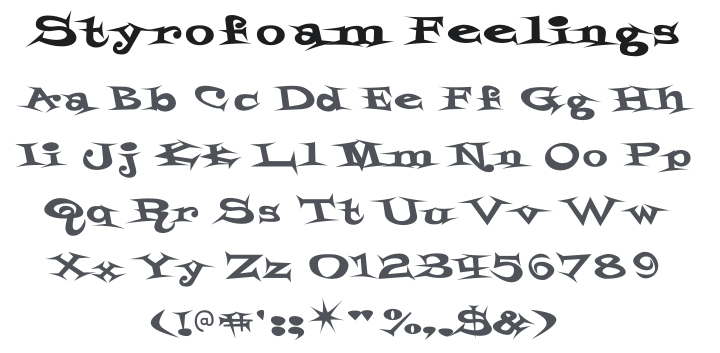
Styrofoam Feelings Font
About Styrofoam Feelings
Styrofoam Feelings is a bold, sharp-edged Latin serif display typeface with a casual, nonchalant attitude — thick strokes taper into unexpectedly pointed, almost spiky terminals that give it a quietly edgy character sitting somewhere between classic old-style serif and dark fantasy. Despite the sharp edges it never feels aggressive, just coolly unconventional. Perfect for editorial headlines, fantasy book covers, alternative music branding, and any design needing distinctive serif personality with an unpredictable edge.